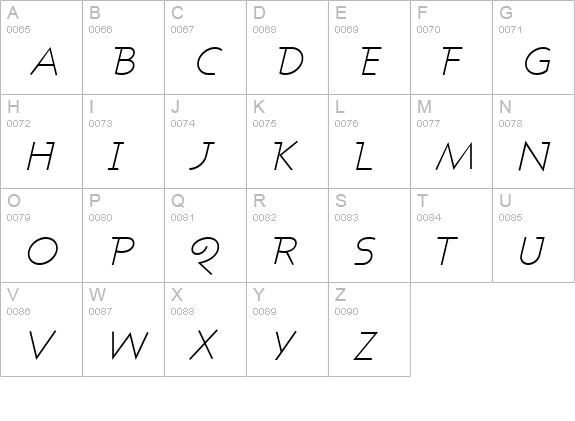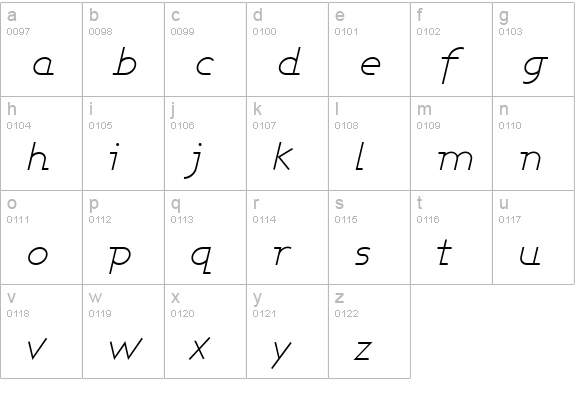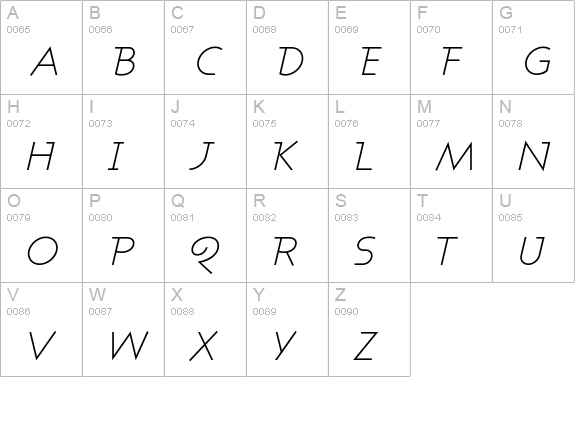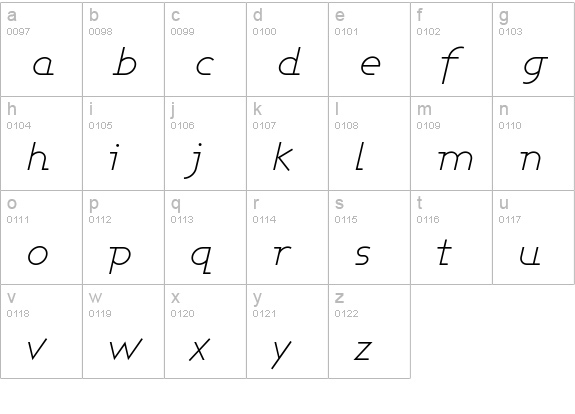
Ashby Light Italic is a refined, elegant, italic variant in the Ashby typeface family \xE2\x80\x94 well suited to elegant body text, refined sub-headings, and luxury branding.
Ashby Light Italic font is a beautifully crafted typeface that exudes elegance and sophistication. With its delicate and flowing curves, this font is perfect for adding a touch of grace to any design project. The Light Italic style adds a sense of fluidity and movement, making it ideal for use in headings, quotes, and other display text. Best of all, Ashby Light Italic font is available for free download at FontsMarket.com. This means that you can easily access this stunning typeface and incorporate it into your projects without any cost. Whether you're working on a website, branding materials, or any other creative endeavor, Ashby Light Italic font will elevate your design with its timeless appeal. Download it today and add a touch of elegance to your work!